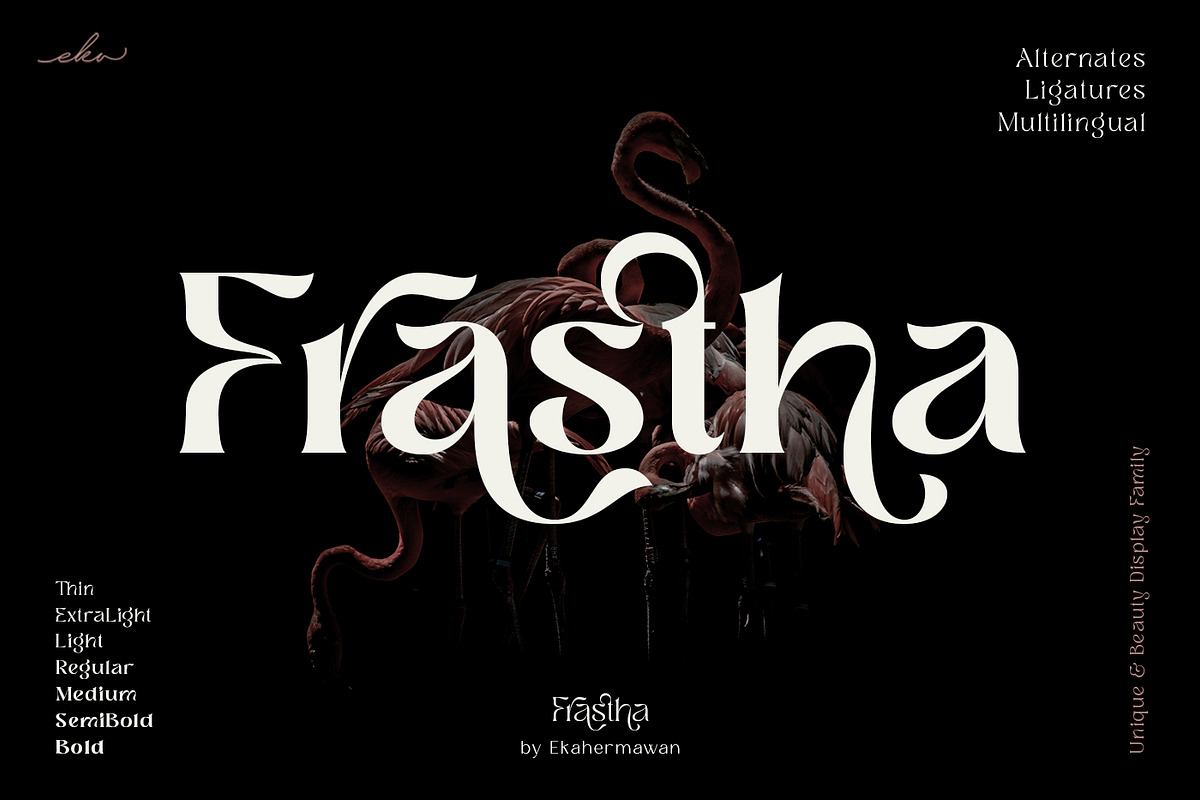
Frastha - Unique Display Serif Font Free Download
Frastha - Unique Display Serif Font Free Download is a stylish and distinctive typeface designed to make a bold statement with refined elegance. Please note: you must purchase this font for commercial use, but you can test it through a free download. With its creative serif details, dramatic contrast, and artistic curves, Frastha is perfect for magazine headlines, fashion branding, luxury packaging, and high-end editorial design.
This font blends classic serif structure with a modern twist—giving your projects a fresh, upscale vibe. Whether you're crafting a logo or designing a hero title for your website, Frastha - Unique Display Serif Font Free Download delivers sophistication and individuality. It’s fully compatible with Adobe Illustrator, Photoshop, and Canva, making it easy to incorporate into your design workflow. Download it today for personal use and elevate your typography with the graceful boldness of Frastha.